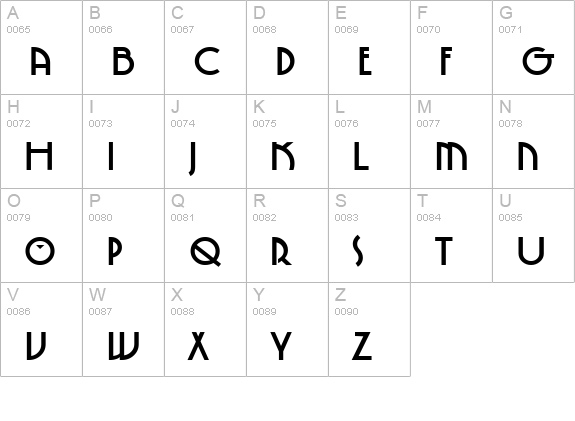
SpringGarden Bold Font Details
SpringGarden Bold is a strong, high-contrast variant in the SpringGarden typeface family \xE2\x80\x94 well suited to headlines, attention-grabbing titles, and strong calls-to-action.
SpringGarden Bold is a captivating and versatile font that will add a touch of elegance to any design project. With its bold and eye-catching letterforms, this font is perfect for headlines, logos, posters, and more. Its unique and stylish design will make your text stand out and leave a lasting impression on your audience. This font is not only visually stunning but also incredibly easy to read, making it suitable for both print and digital media. Whether you're designing a magazine spread or creating a website, SpringGarden Bold will ensure that your message is delivered with clarity and impact. But what makes SpringGarden Bold truly special is the fact that it is available for free. That's right - you can download this beautiful font without spending a dime. Thanks to FontsMarket.com, you can easily access SpringGarden Bold and enhance your designs without breaking the bank. So why wait? Take advantage of this amazing opportunity and download SpringGarden Bold today. With its free availability and exceptional design, this font is a must-have for any designer or creative professional. Don't miss out on the chance to elevate your projects with the stunning SpringGarden Bold font.